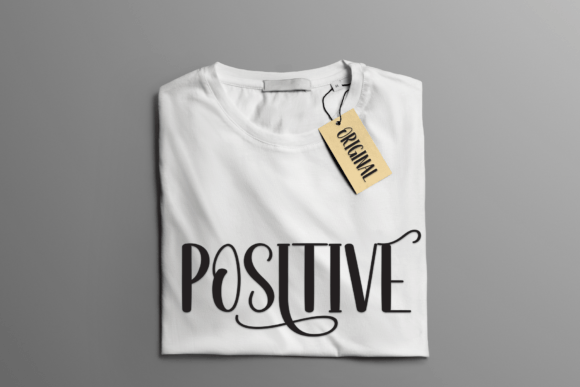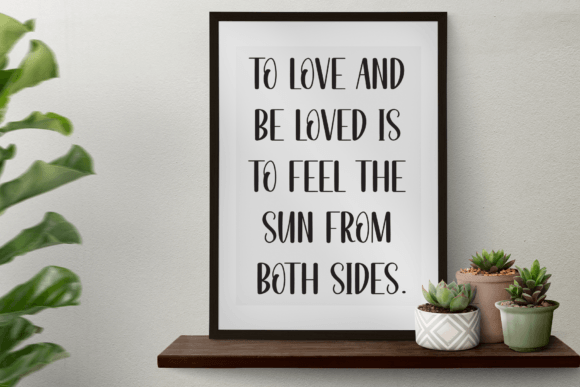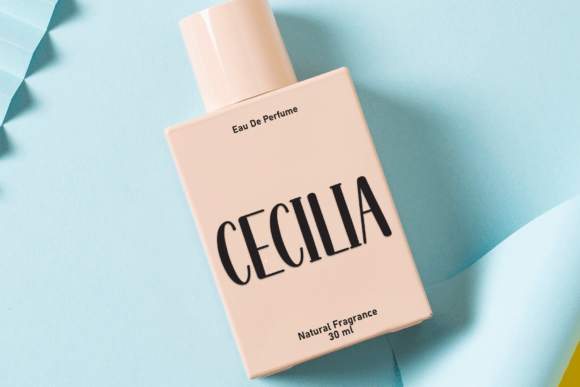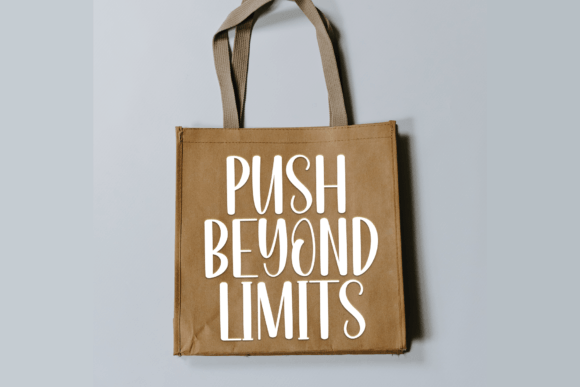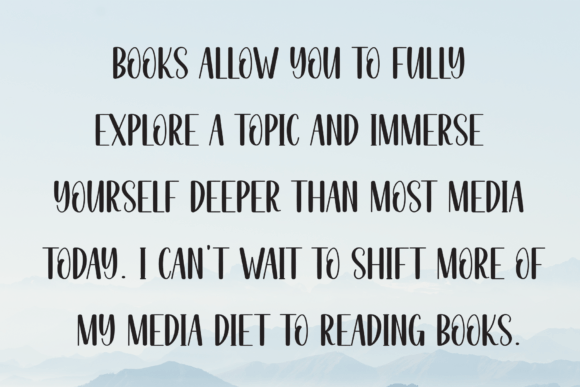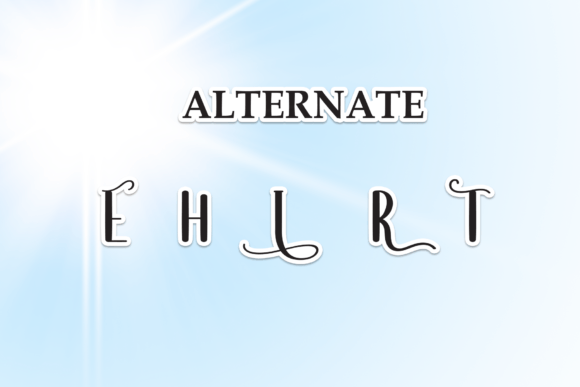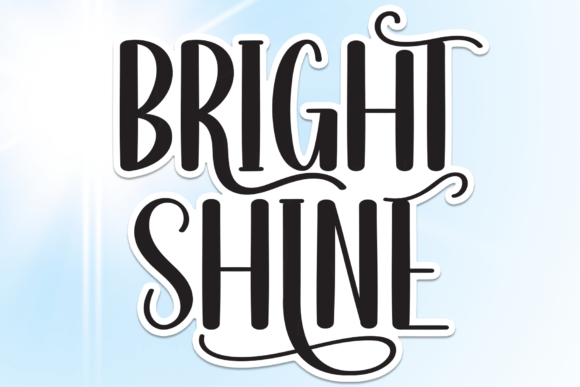
Introducing Bright Shine Font: The Sweet and Friendly Handwritten Font
Are you a designer or crafter looking for a font that can add a personal touch to your projects? Look no further than Bright Shine Font! This sweet and friendly handwritten font is perfect for creating unique and eye-catching designs that stand out from the crowd. With its natural and unique style, Bright Shine Font is incredibly versatile and can be used in a wide range of designs, from invitations and greeting cards to branding and packaging.
The Characteristics of Bright Shine Font
So, what makes Bright Shine Font so special? For starters, its handwritten style gives it a warm and approachable feel that’s perfect for creating designs that are friendly and inviting. The font’s natural and unique style also makes it incredibly fitting for a wide range of designs, from modern and trendy to vintage and rustic. Whether you’re creating a design for a client or for your own personal project, Bright Shine Font is sure to add a touch of personality and whimsy.
The Benefits of Using Bright Shine Font
There are many benefits to using Bright Shine Font in your designs. For one, its unique and handwritten style makes it a great way to add some personality to your projects. Unlike more traditional fonts, Bright Shine Font has a lot of character and can help your designs stand out from the crowd. Additionally, the font’s versatility makes it perfect for use in a wide range of designs, from digital projects like social media graphics and blog posts to print projects like brochures and flyers.
How to Use Bright Shine Font in Your Designs
So, how can you use Bright Shine Font in your designs? The possibilities are endless! Here are a few ideas to get you started:
• Use Bright Shine Font to create custom invitations for parties, weddings, and other special events.
• Add a personal touch to your greeting cards and stationery with Bright Shine Font.
• Use Bright Shine Font to create eye-catching branding and packaging for your business or product.
• Create unique and engaging social media graphics and blog posts with Bright Shine Font.
• Use Bright Shine Font to add a touch of personality to your website or blog.
Tips and Tricks for Working with Bright Shine Font
Here are a few tips and tricks to keep in mind when working with Bright Shine Font:
• Experiment with different colors and textures to add depth and interest to your designs.
• Use Bright Shine Font in combination with other fonts to create a unique and eye-catching design.
• Don’t be afraid to get creative and try new things – Bright Shine Font is a versatile font that can be used in a wide range of designs.
• Make sure to adjust the font size and style to fit your design and ensure that it’s easy to read.
In conclusion, Bright Shine Font is a sweet and friendly handwritten font that’s perfect for designers and crafters looking to add a personal touch to their projects. With its natural and unique style, Bright Shine Font is incredibly versatile and can be used in a wide range of designs. Whether you’re creating a design for a client or for your own personal project, Bright Shine Font is sure to add a touch of personality and whimsy. So why wait? Download Bright Shine Font today and start creating your own unique and eye-catching designs!
Key Features of Bright Shine Font
• Sweet and friendly handwritten font
• Natural and unique style
• Incredibly versatile and can be used in a wide range of designs
• Perfect for creating unique and eye-catching designs
• Can be used in digital and print projects
The only limit to what you can create with Bright Shine Font is your imagination! So don’t be afraid to get creative and try new things. With Bright Shine Font, the possibilities are endless!